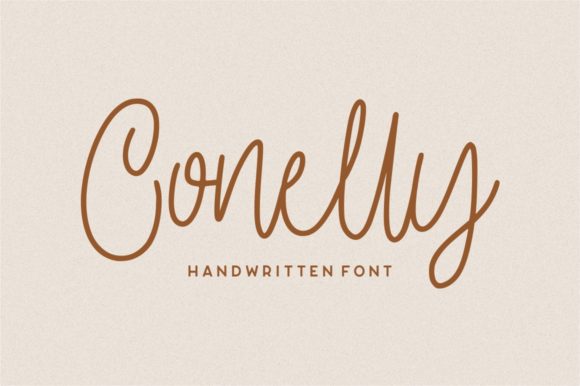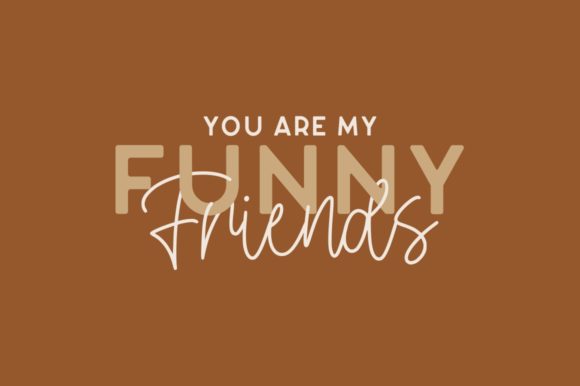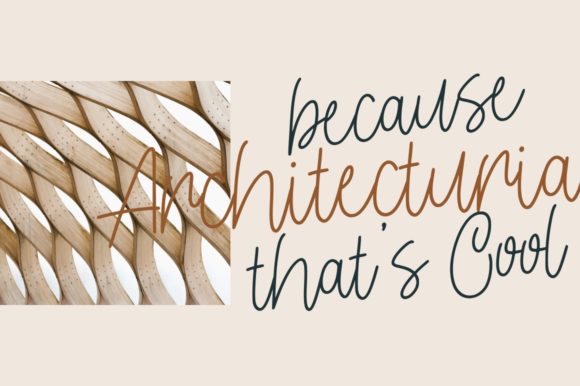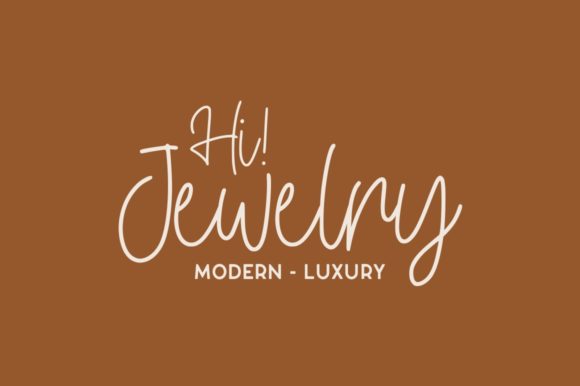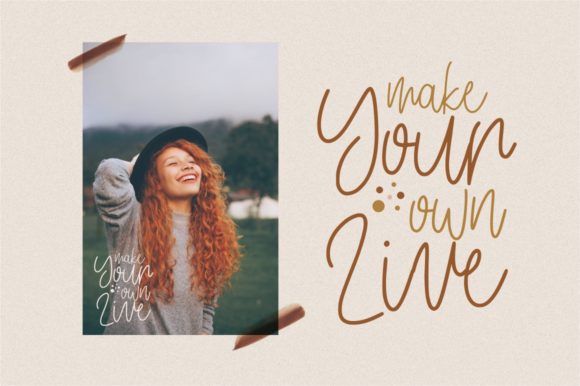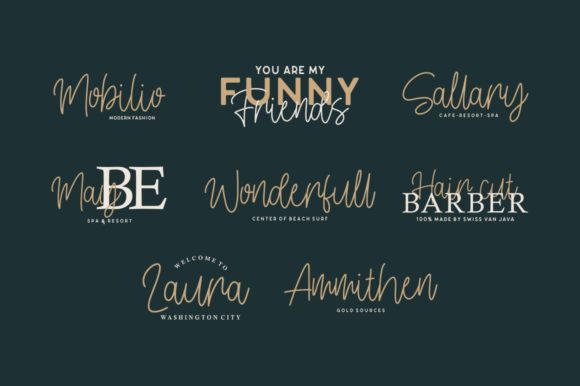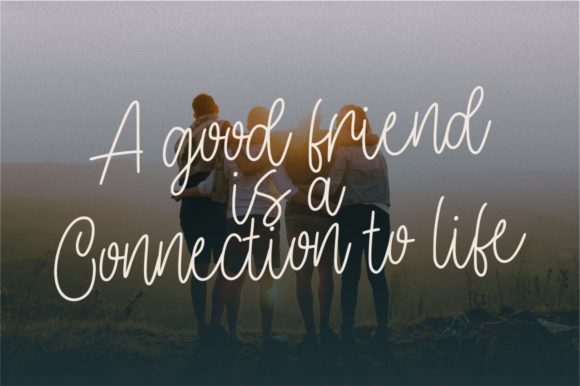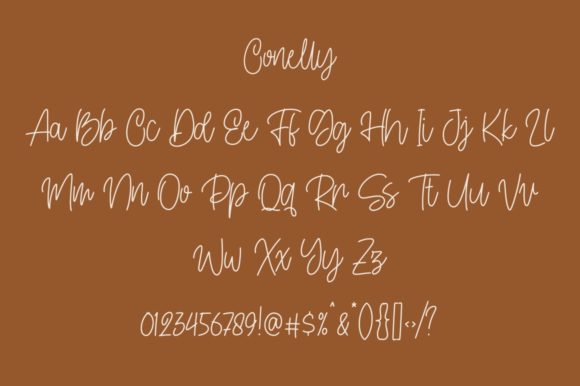
Conelly Font
About Conelly Font
Conelly is a natural & modern handwritten font. It’s perfect for adding a dash of authenticity to your next creative adventure!